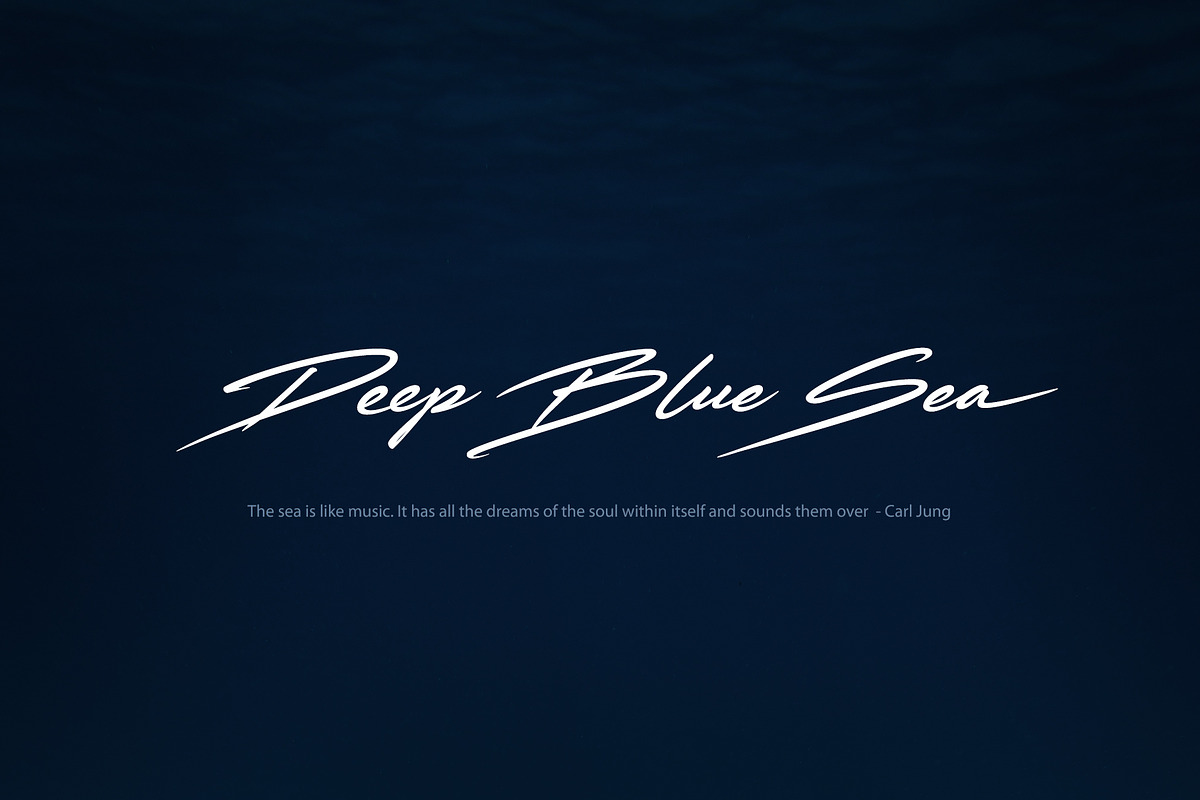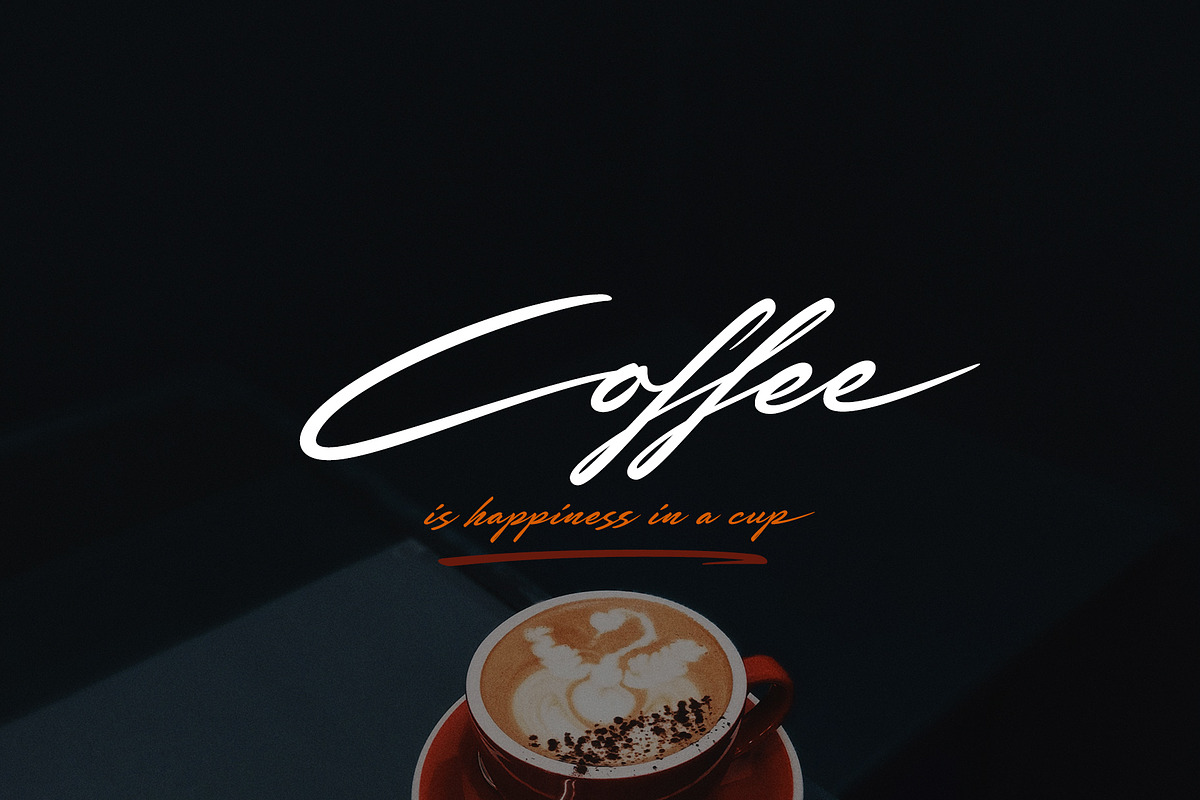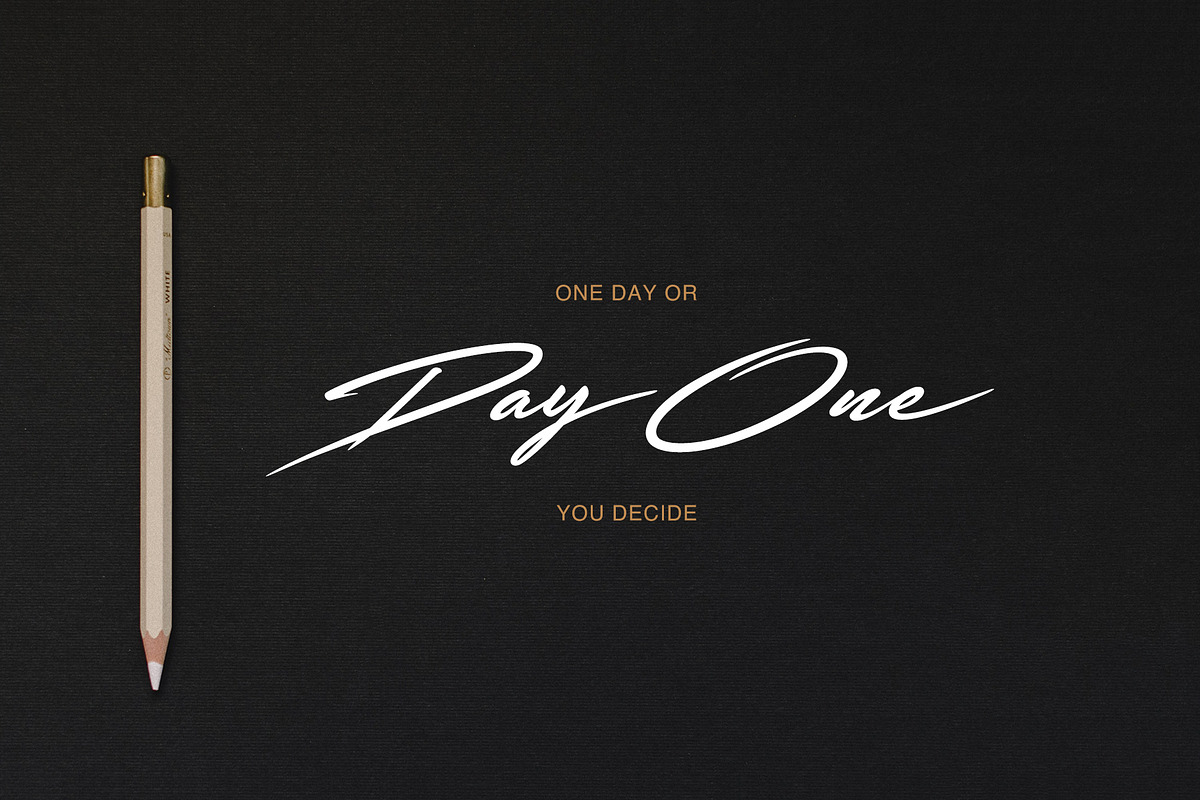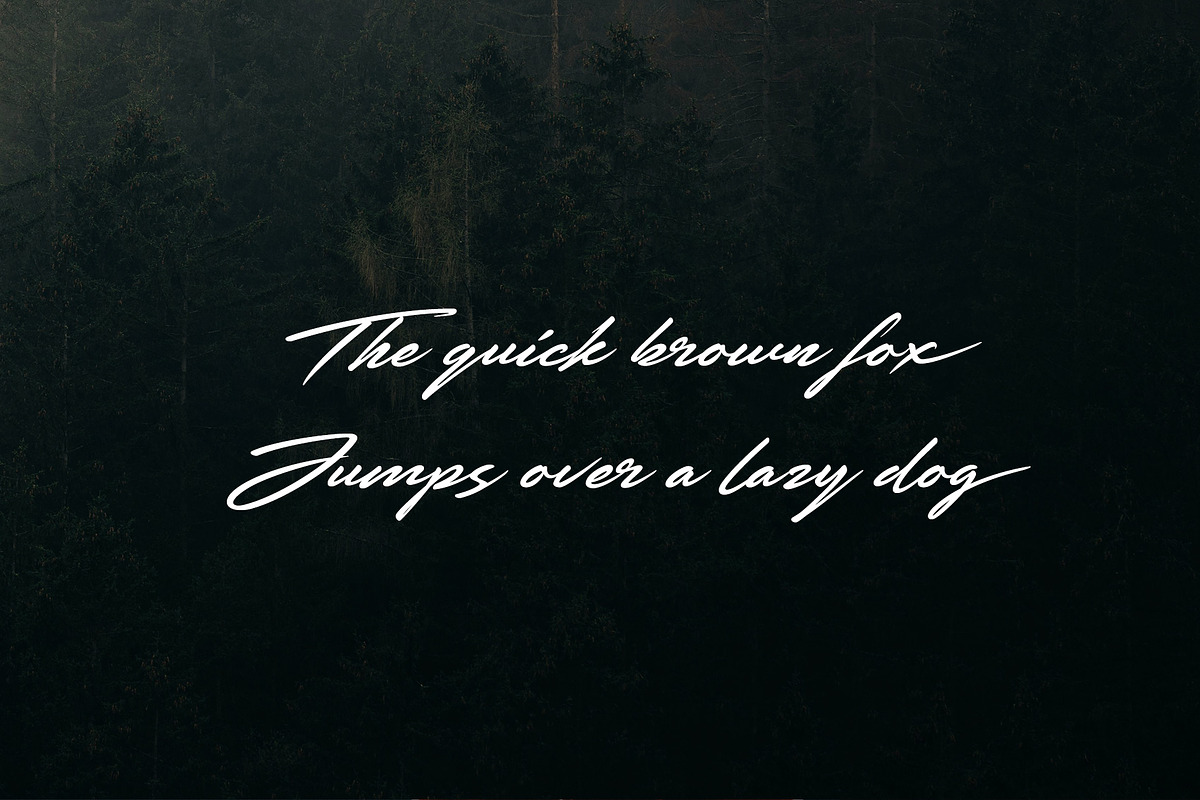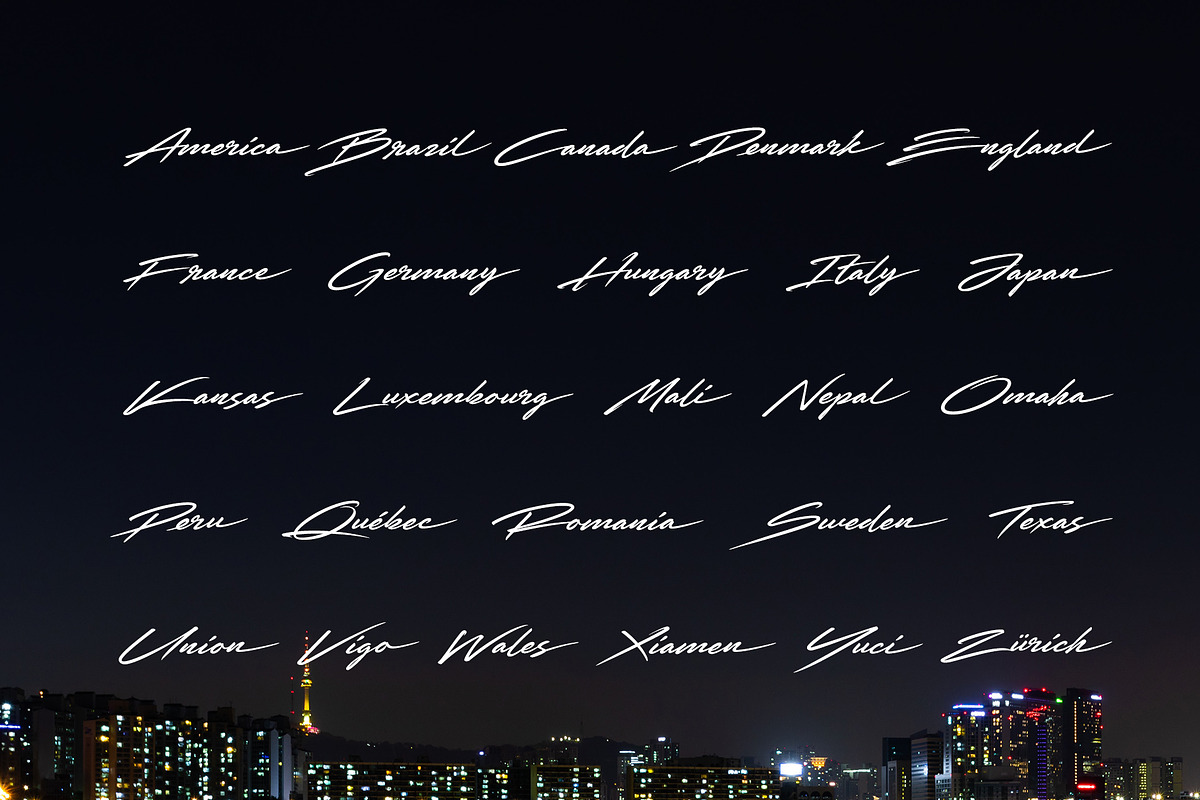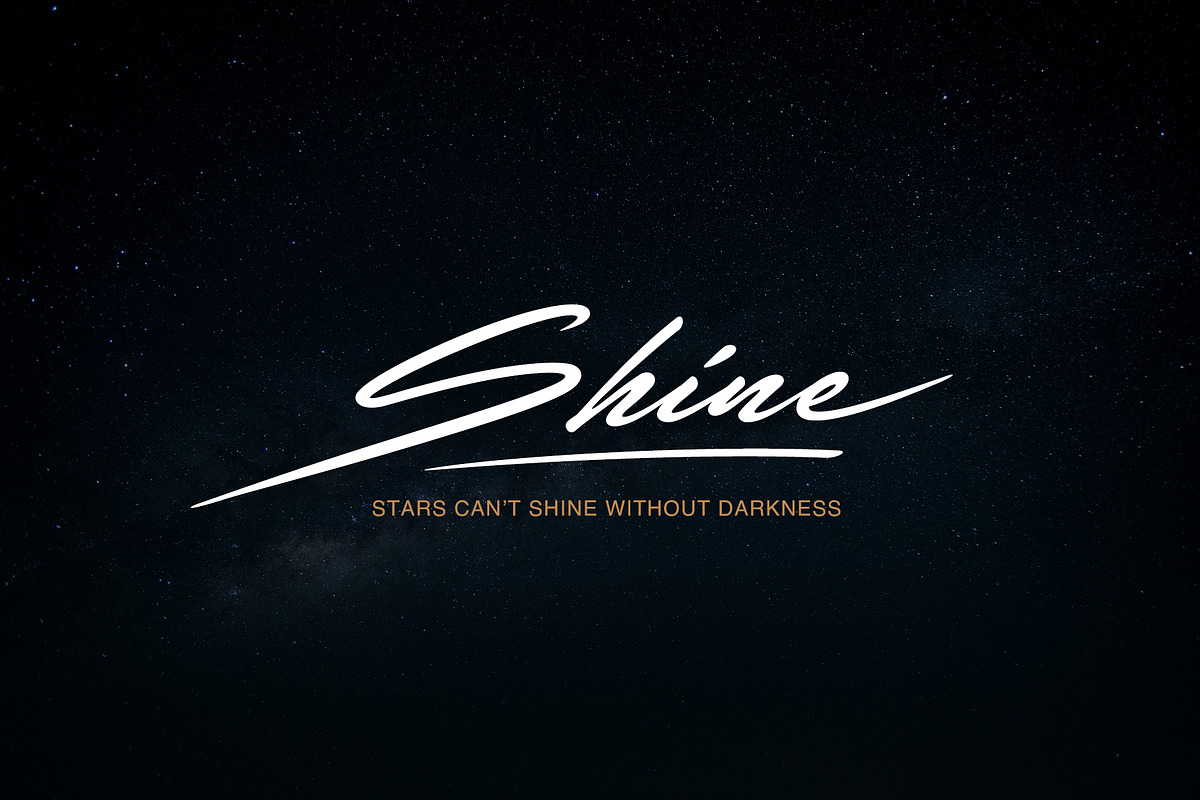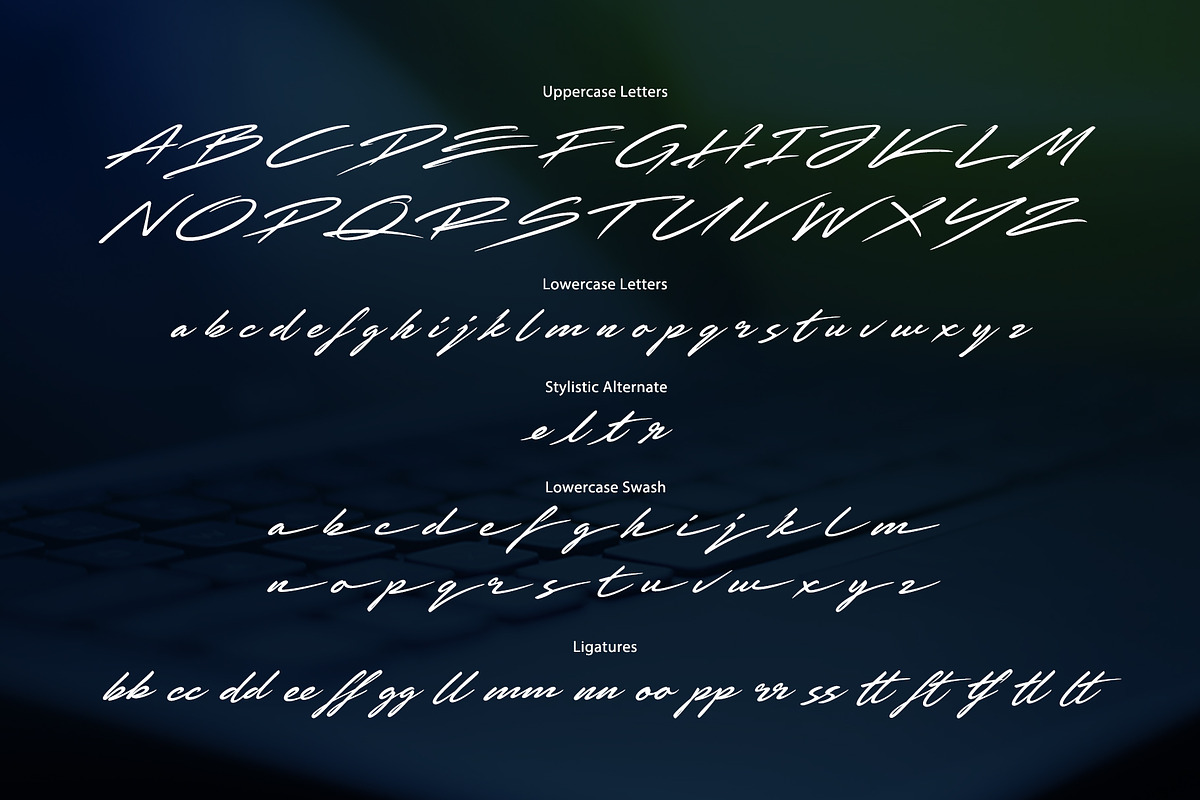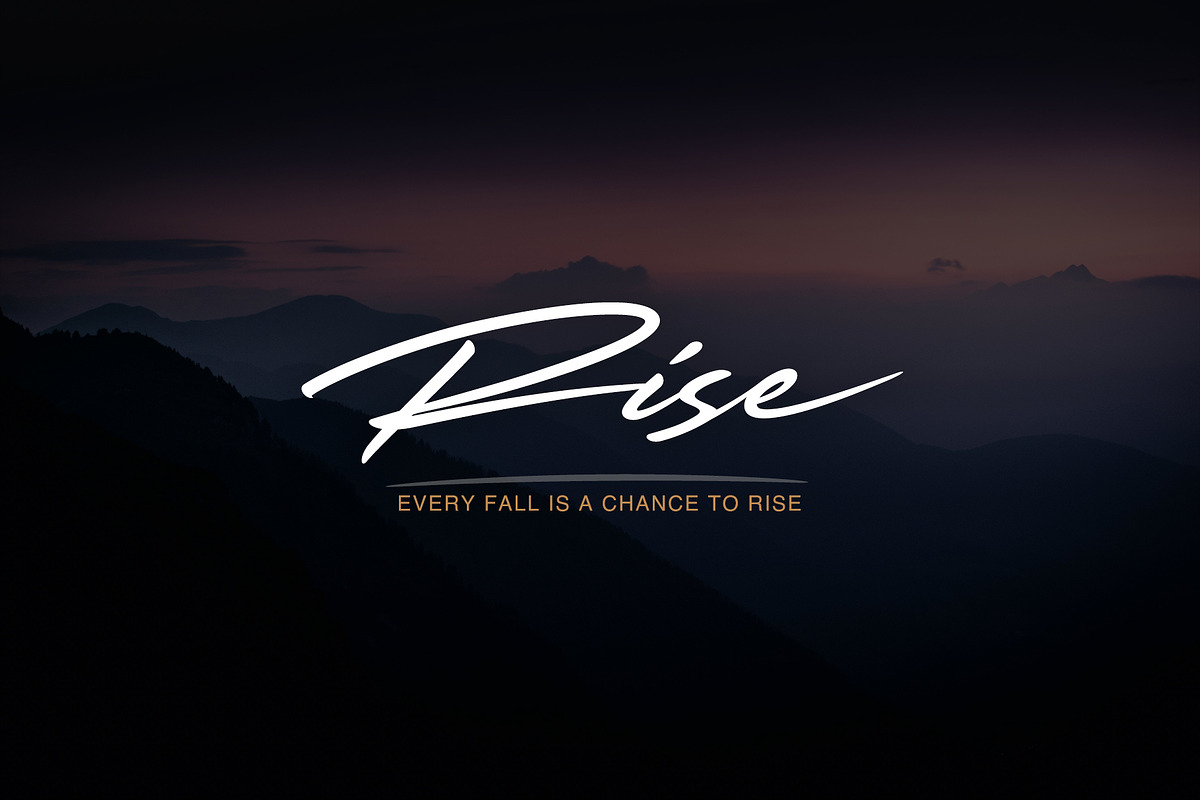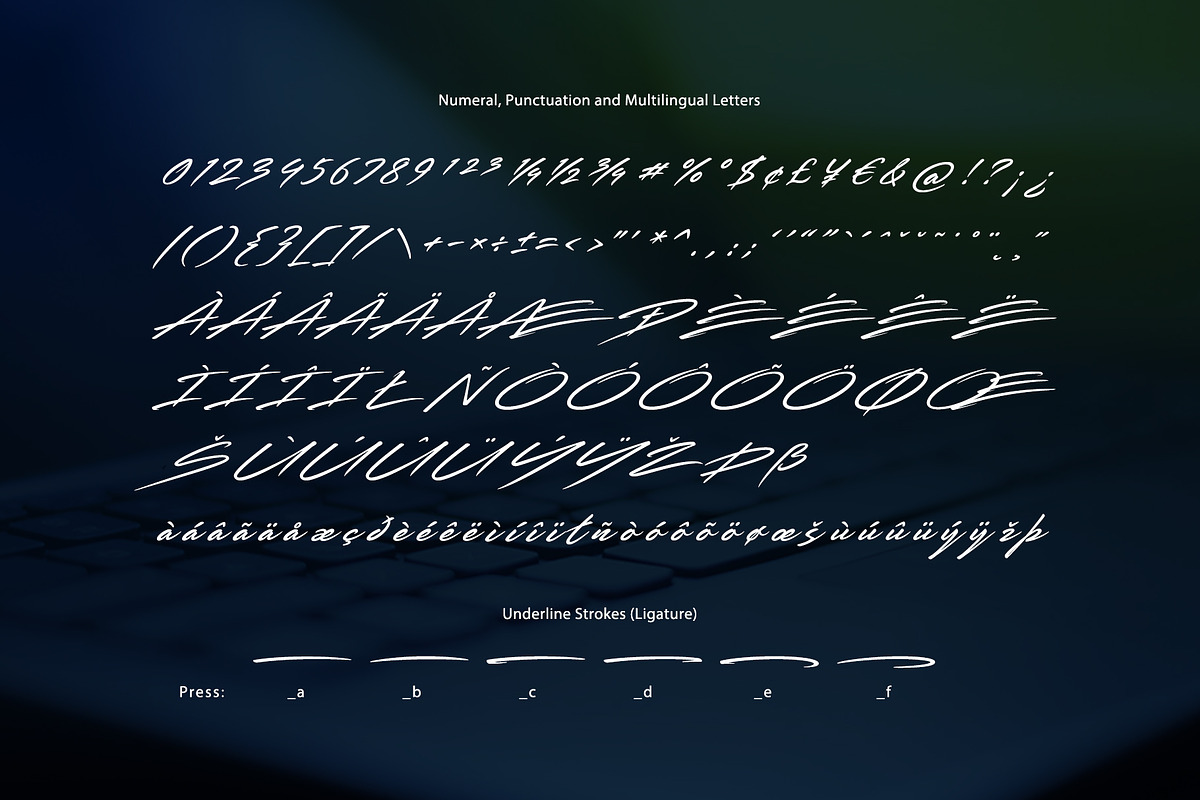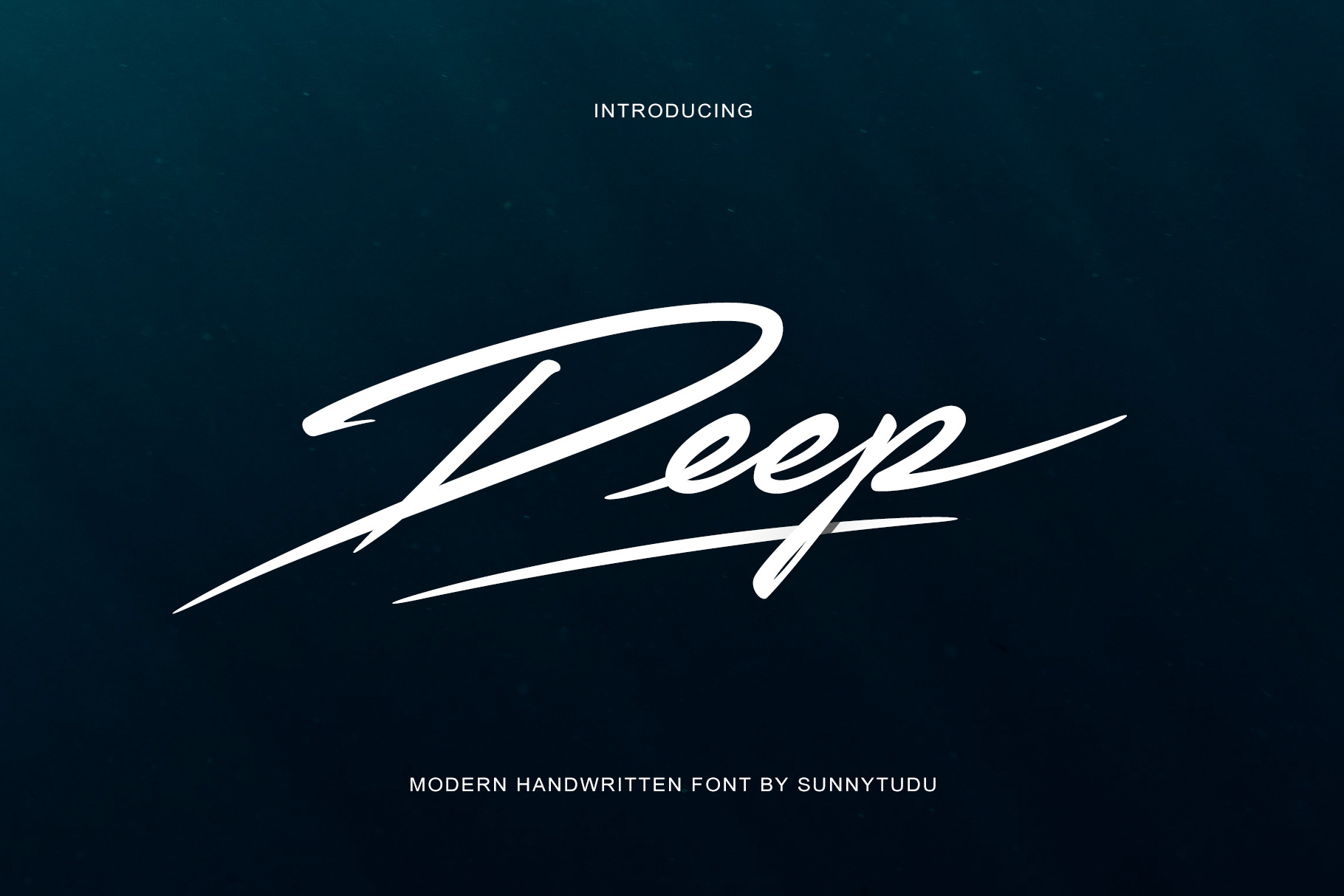
Deep Handwritten Font
Deep is a nice handwritten font. It gives a complete authentic feel on your text.
Total 254 glyphs available including alphabets, numerals, punctuation, ligature, lowercase stylistic alternate and multilingual characters.
To type underline strokes press: _a _b _c _d _e _f (keep the 'ligature' button on)